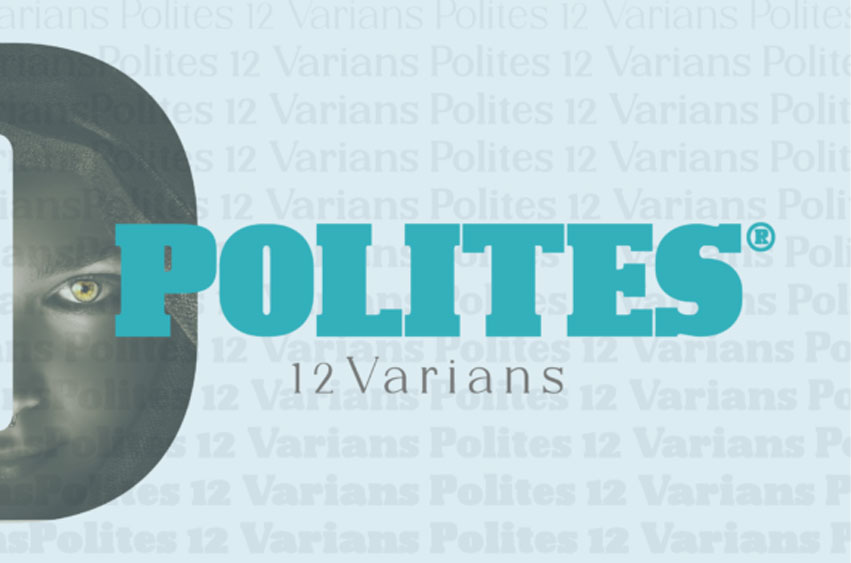
Polites Font
Polites Font is a bold and chunky lettered serif font.
It is suitable for any branding, product packaging, invitation, quote, t-shirt, label, poster, or logo that you wish to develop.